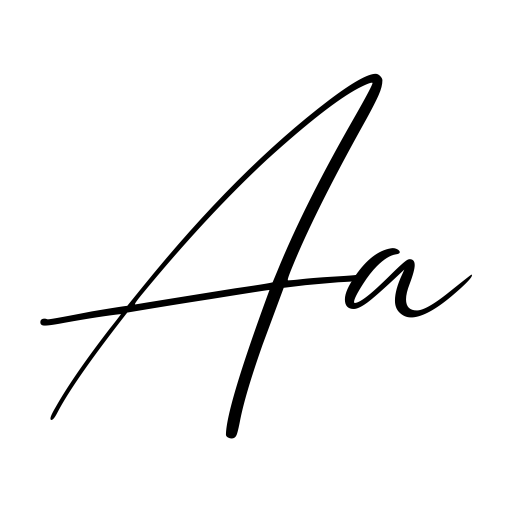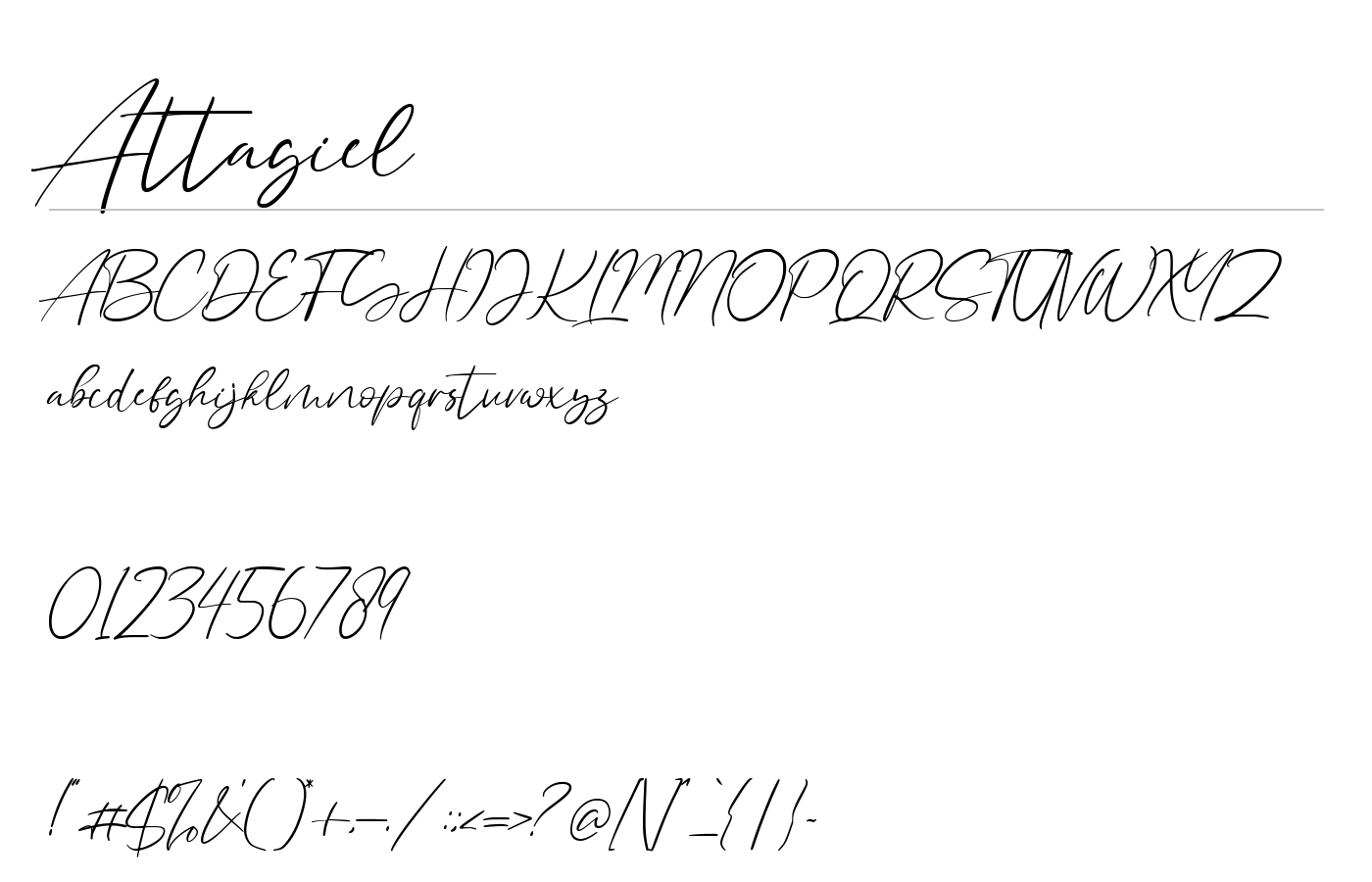
Attagiel is a delicate, handwritten script font that features thin, flowing lines with a refined, elegant touch. Its tall, slender letterforms and subtle slant give it a graceful and personal feel, making it perfect for sophisticated branding, invitations, and stylish editorial use where an intimate, artistic impression is desired. This font's light weight and airy spacing enhance its charm and readability in decorative and elegant design contexts.
Attagiel Font
About Attagiel Font
| Font family | Attagiel Font |
| Designer | Virgiawan Listanto. 2020 |